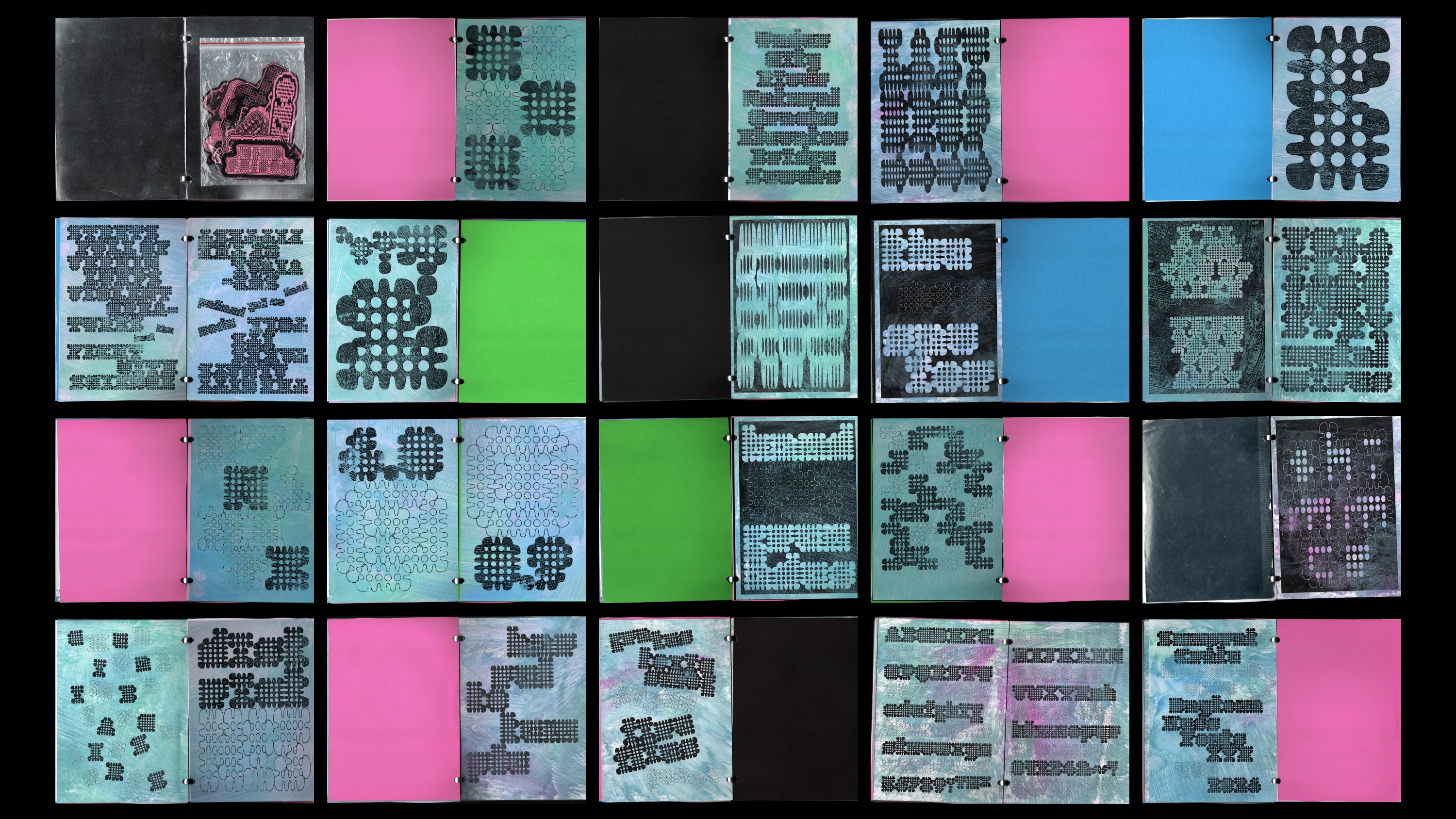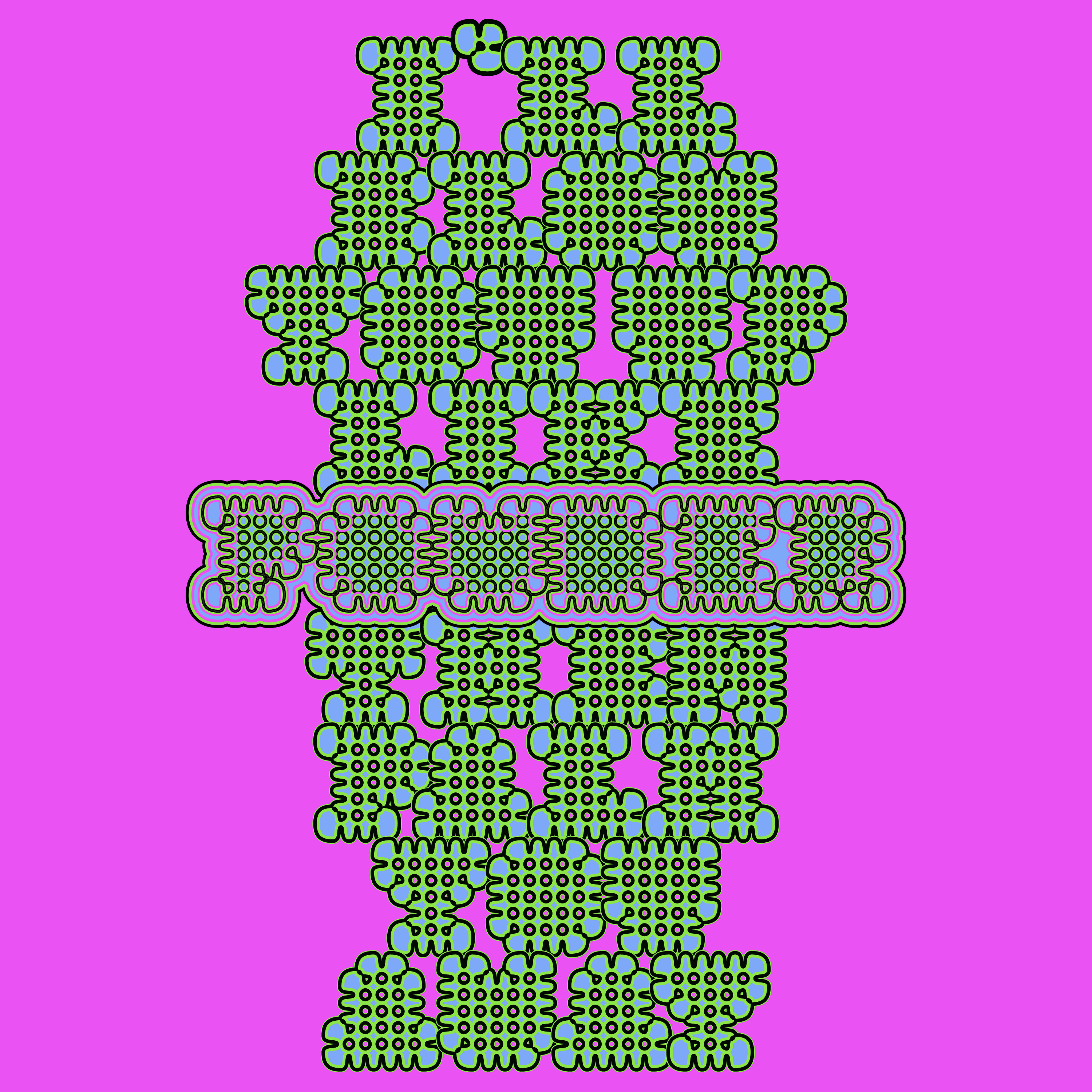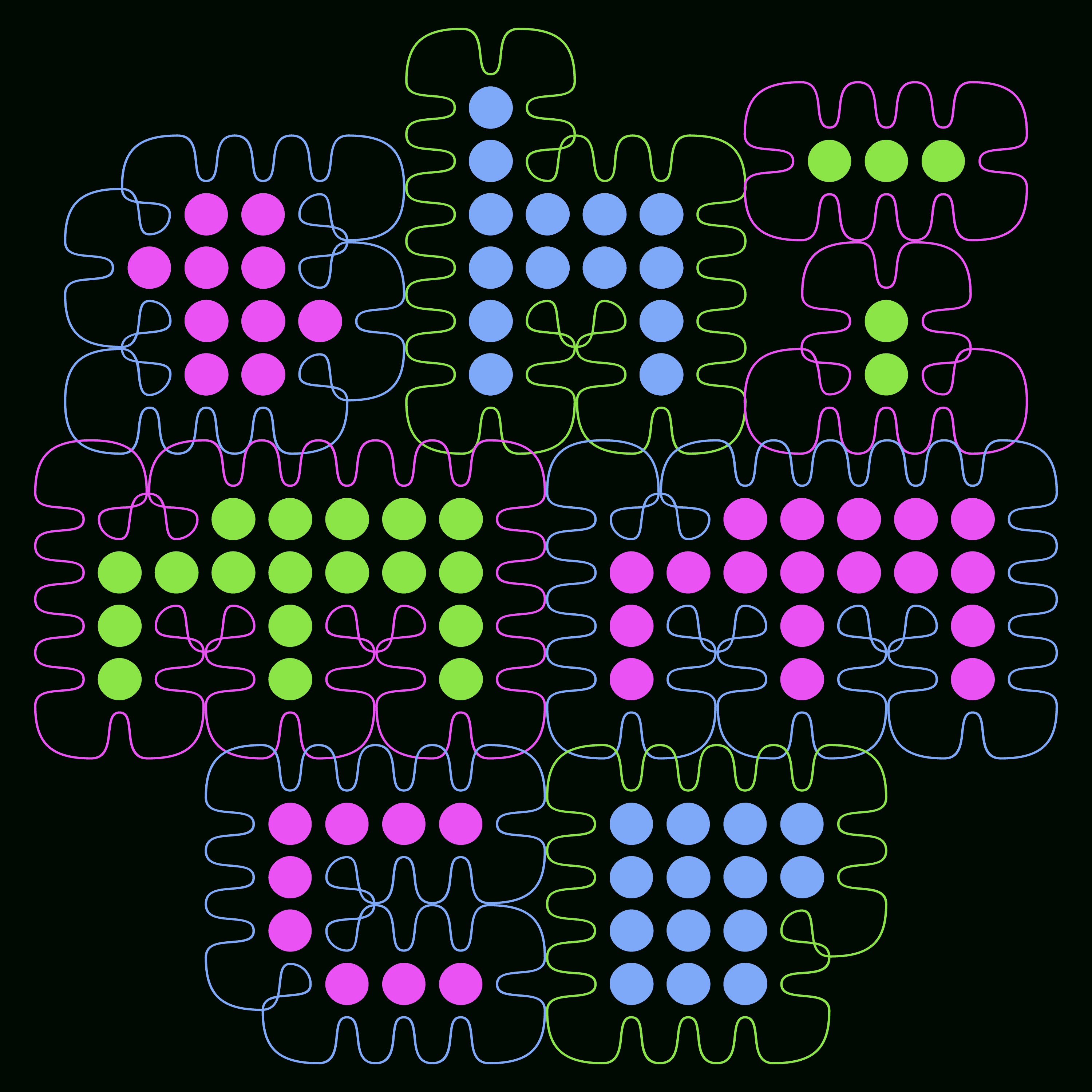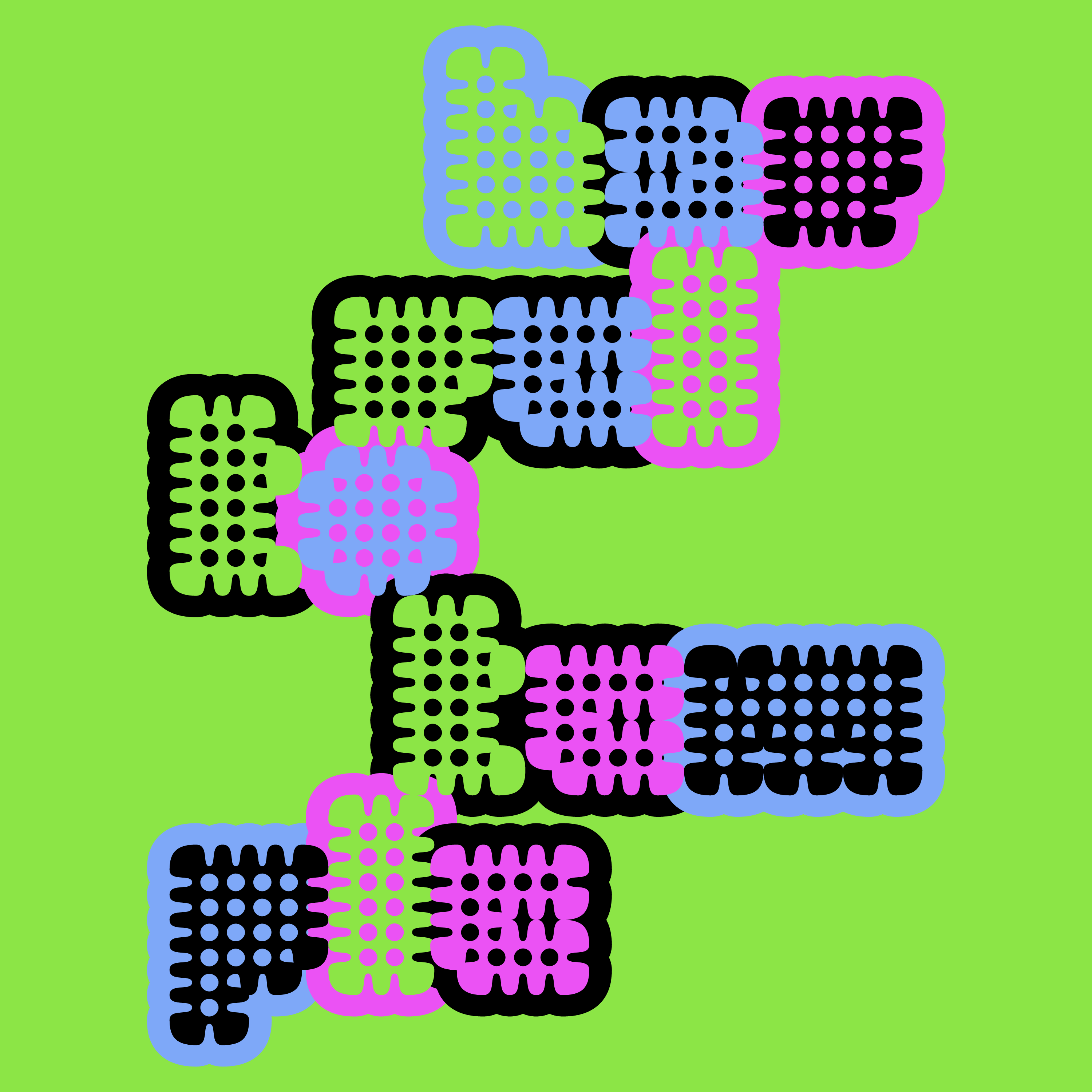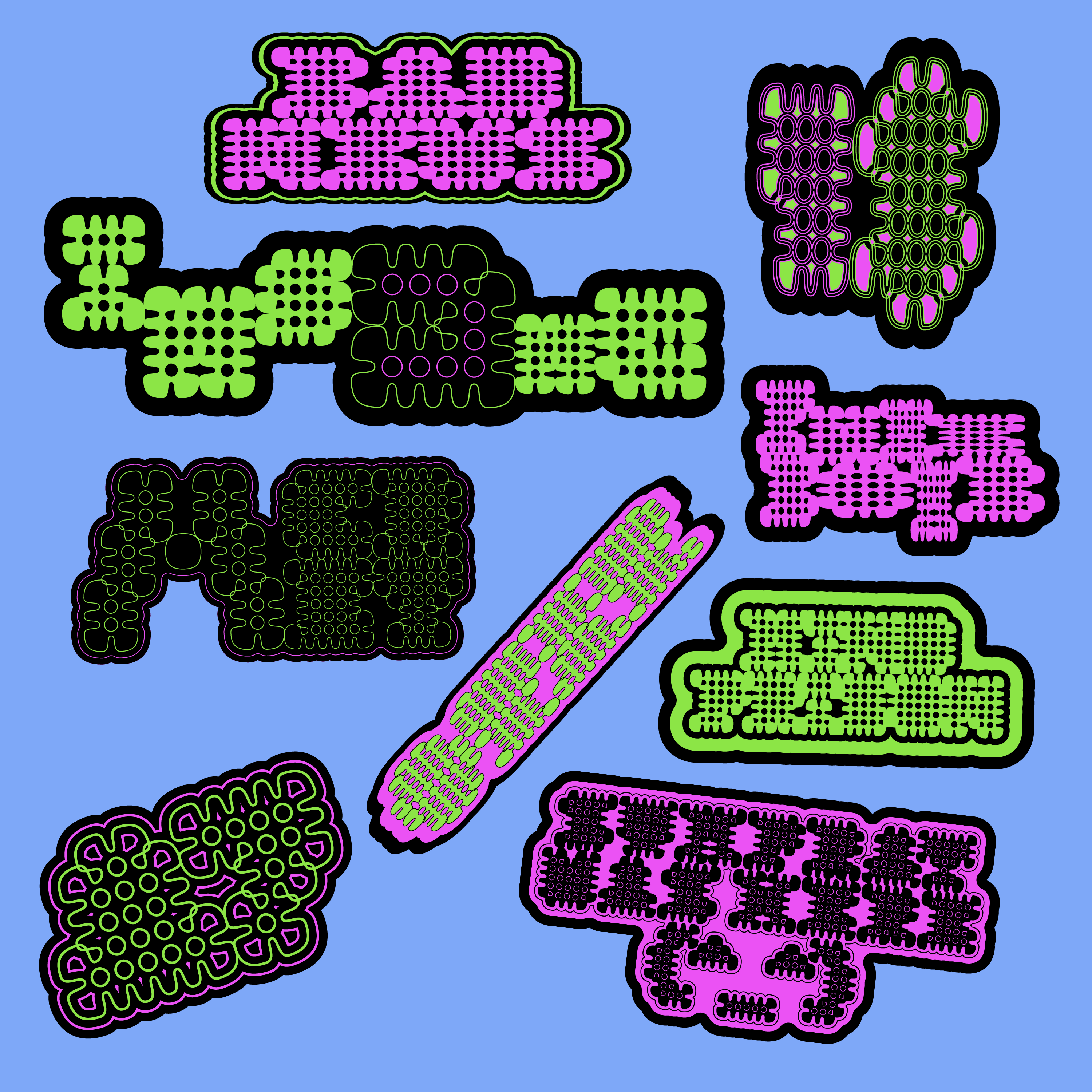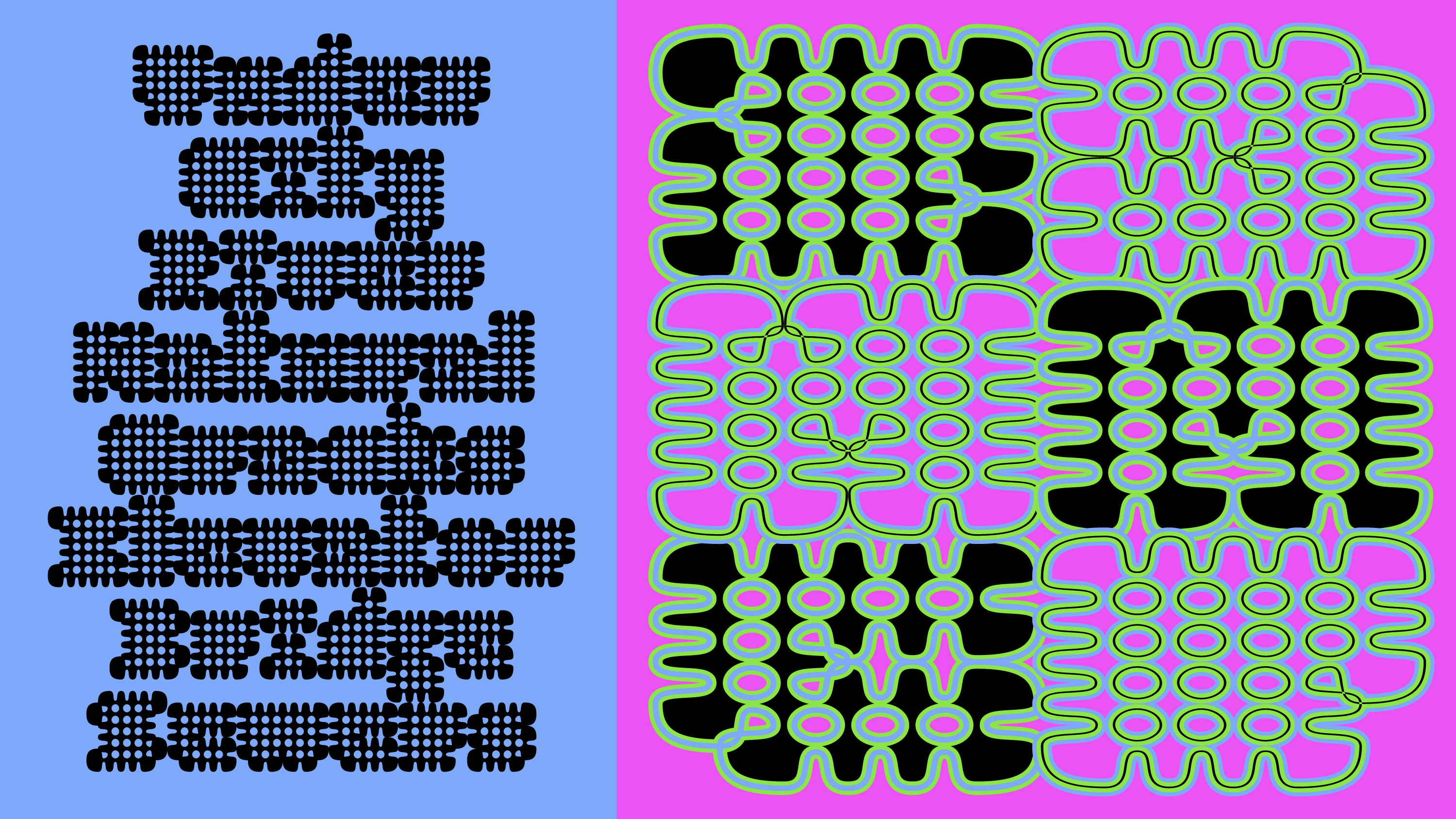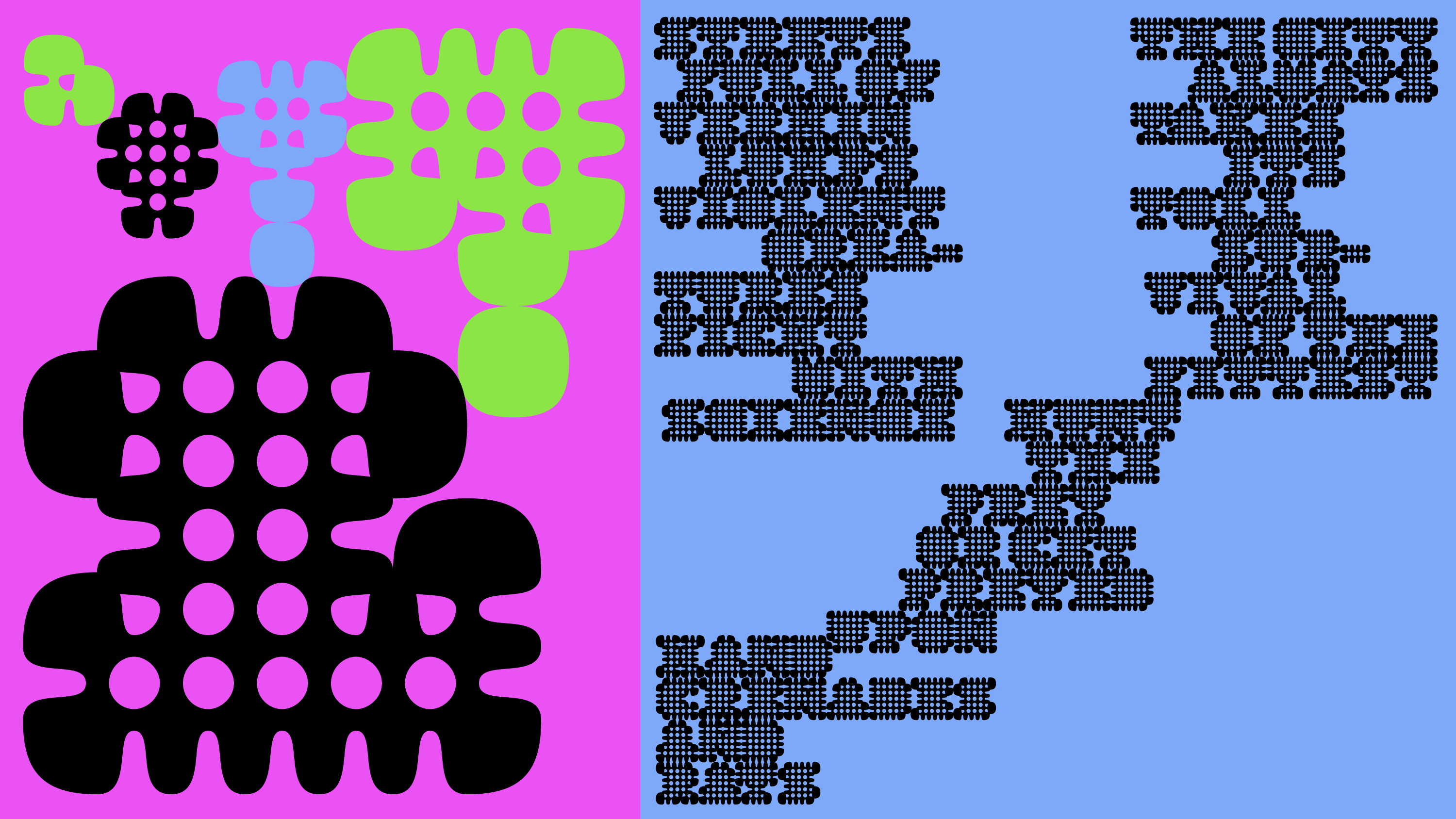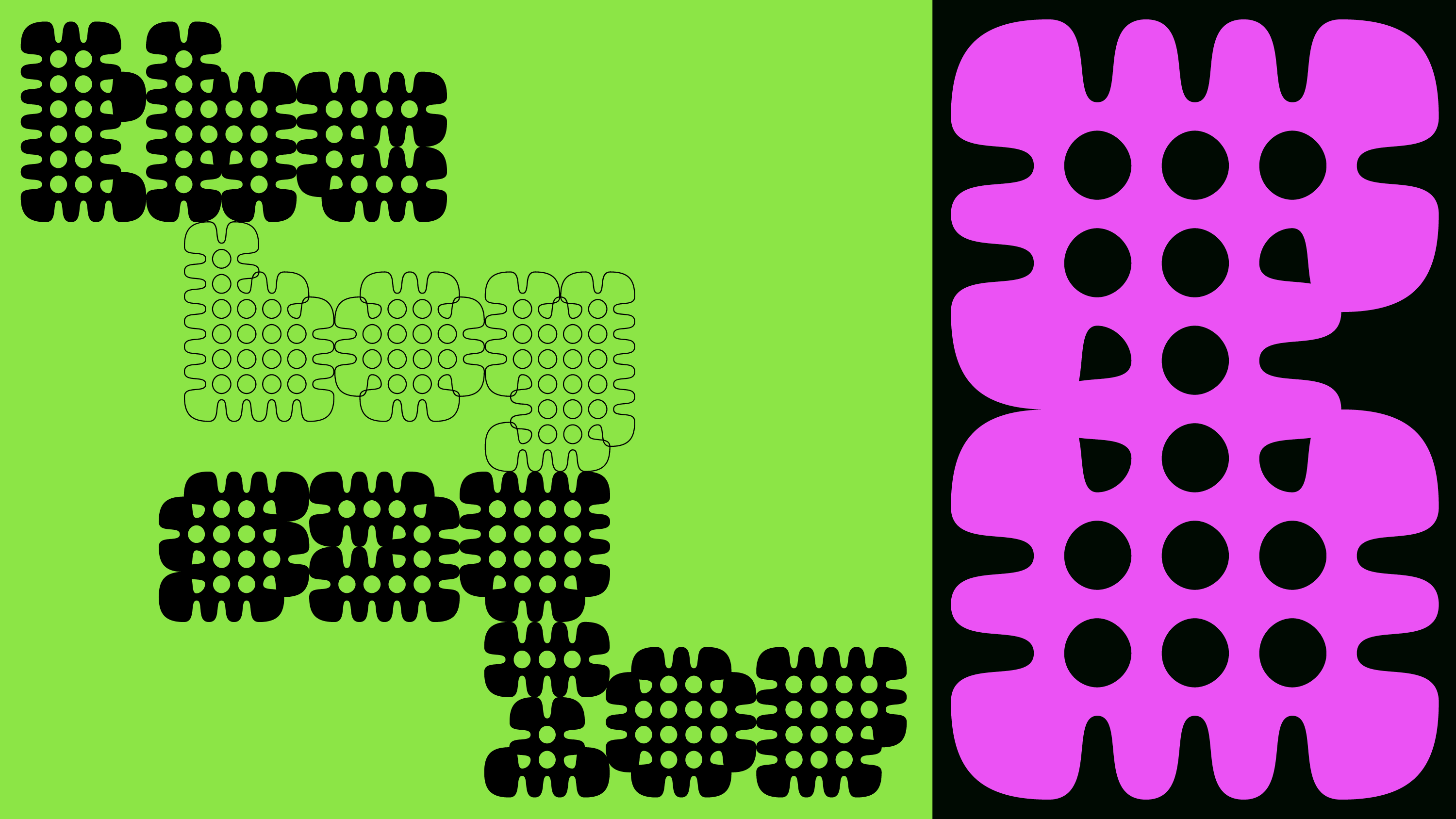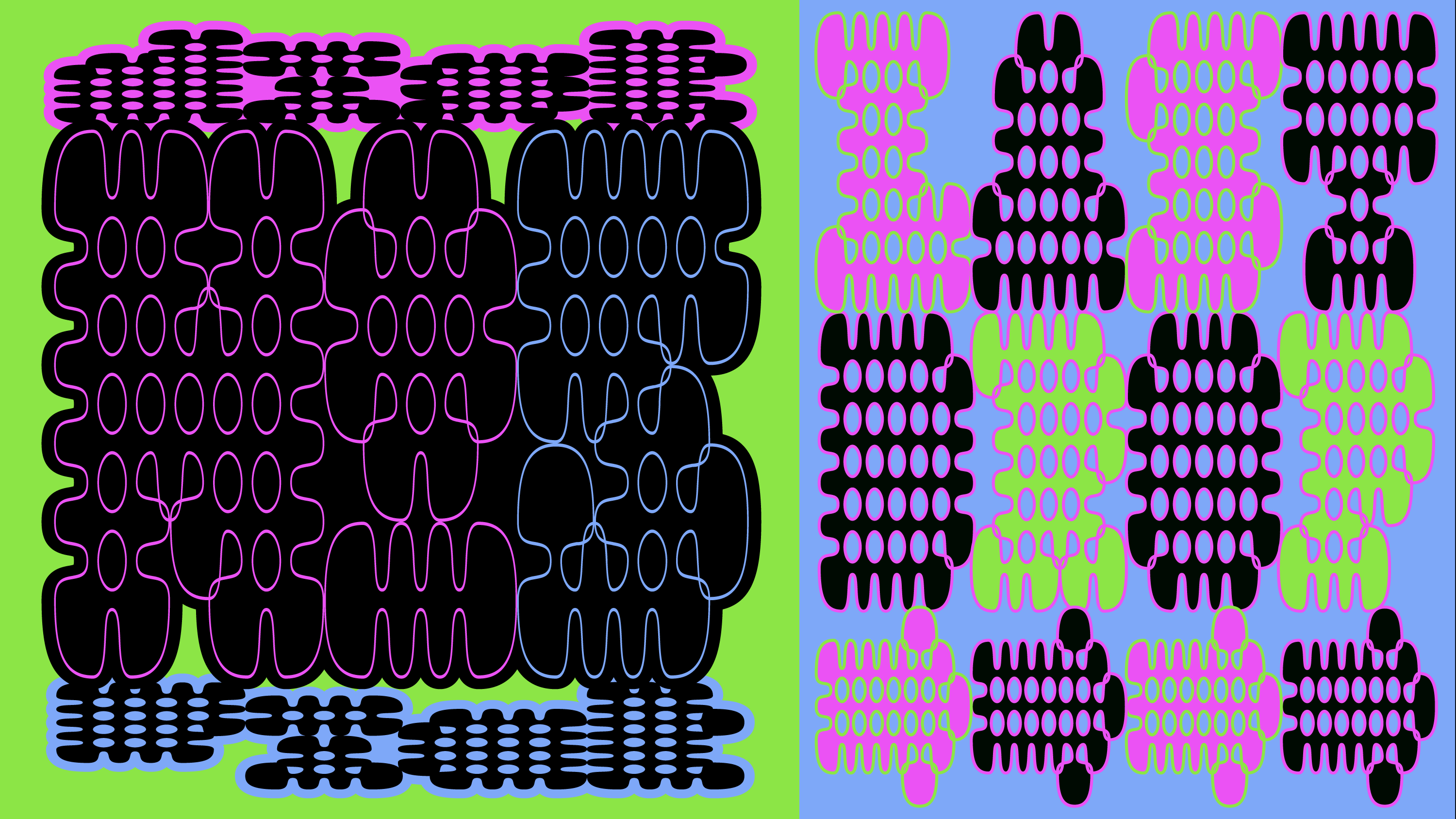
Welcome to the Undercity.
Sumprat is a typeface inspired by the city of Zaun, with its metal grates, sewer covers, and wire fences.
Hunt the prey, or get preyed upon... Come and play!
This is Sumprat's first version; a larger glyphset is on the way :)
Please note that the Grate style is solid and does not feature the interlaced corners of Wire 🙏
Grate
Wire